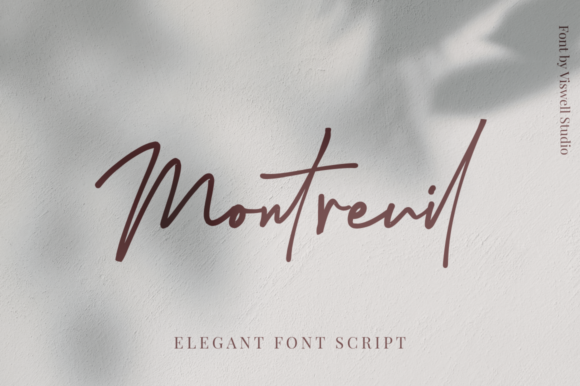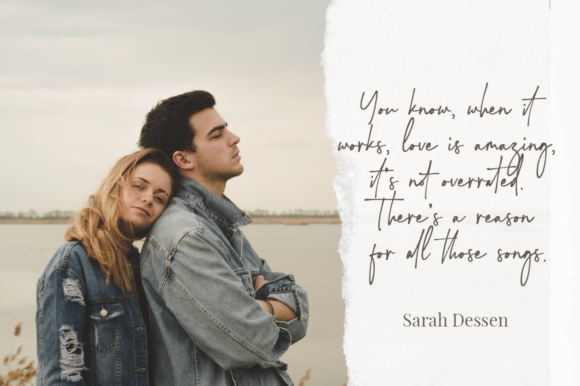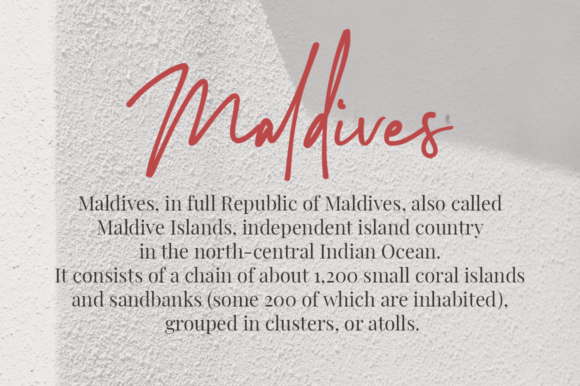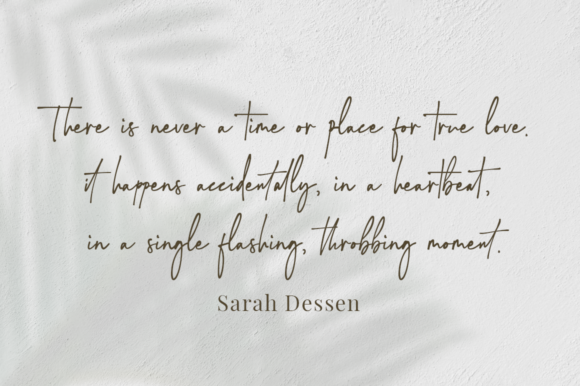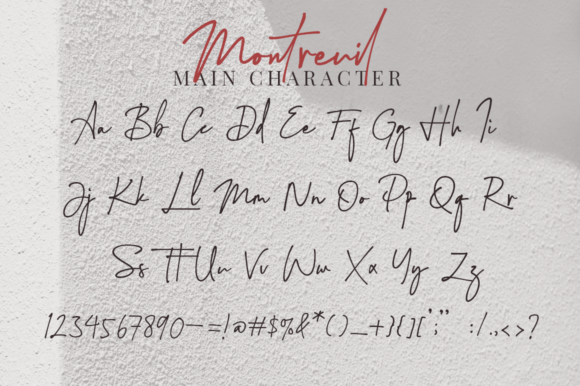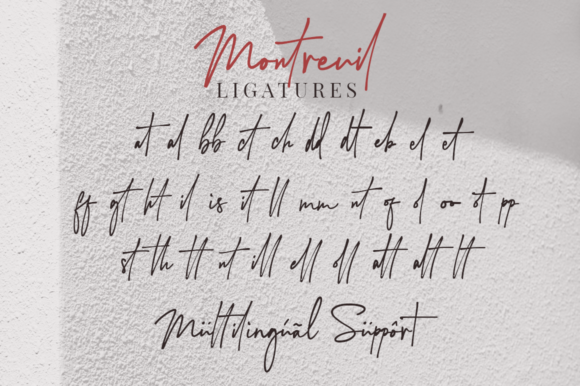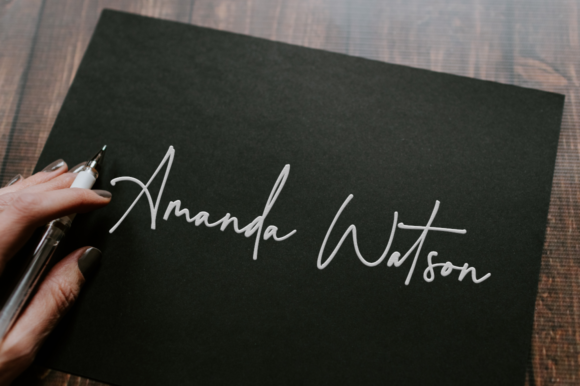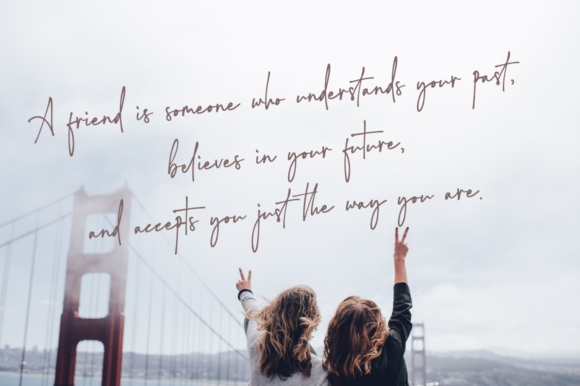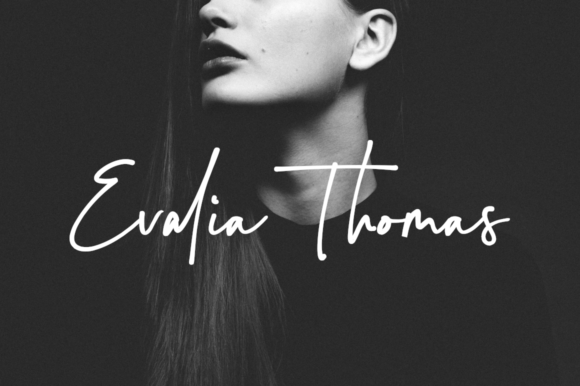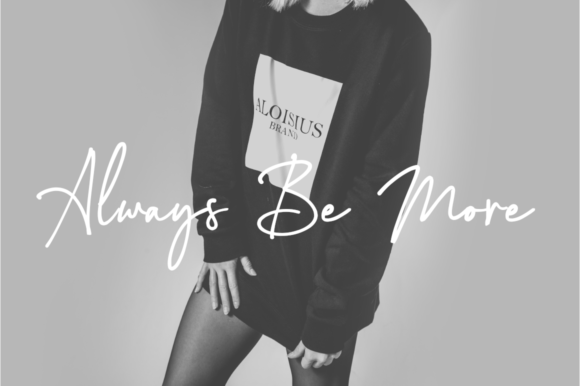
Montreuil Font
About Montreuil Font
Montreuil is a elegant signature font created with the natural effect of handwriting. Use it for any design project that requires a personalized appearance!